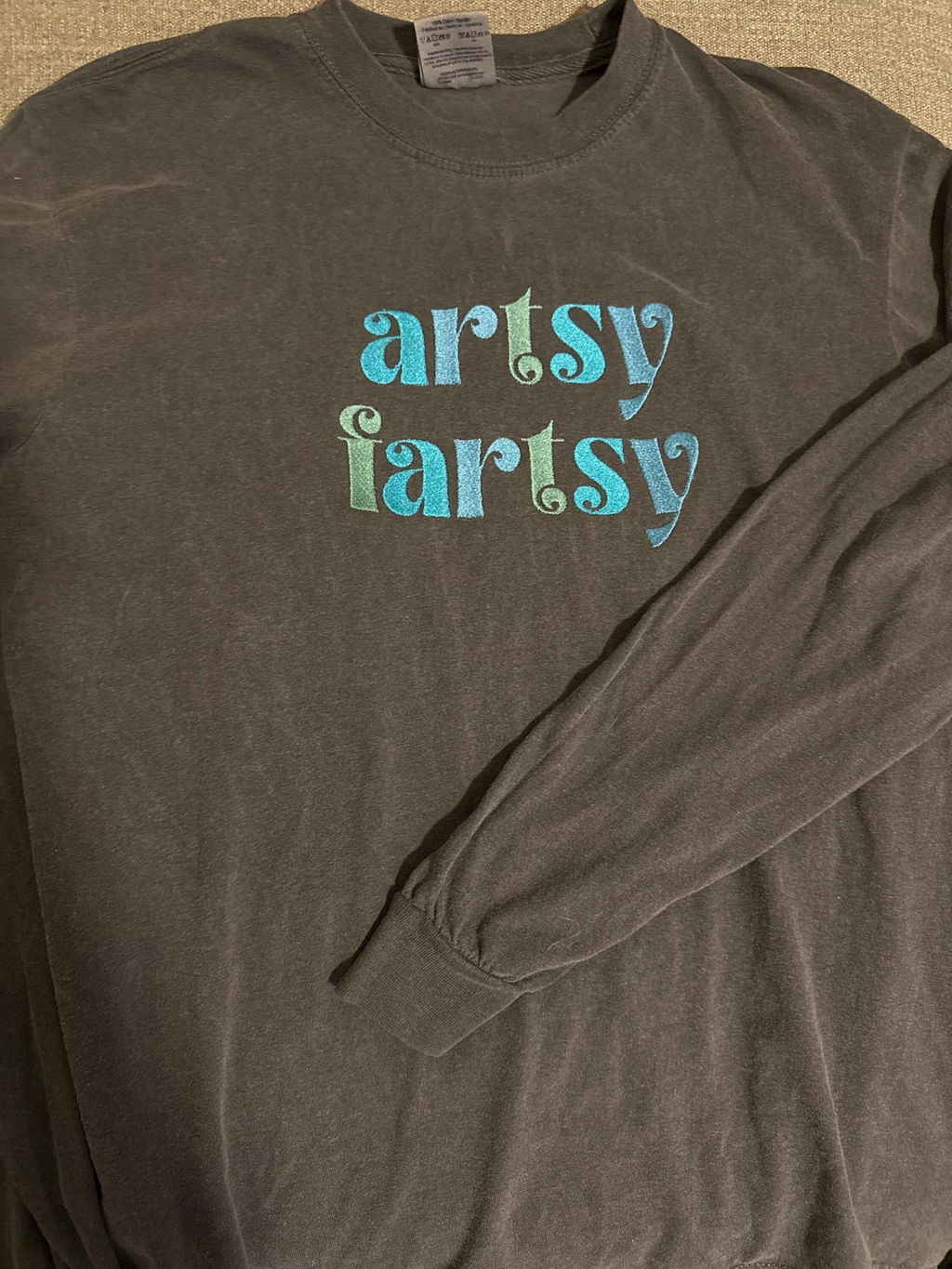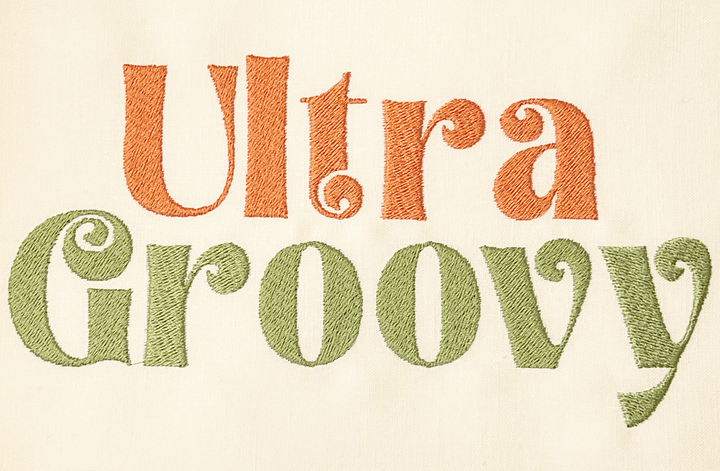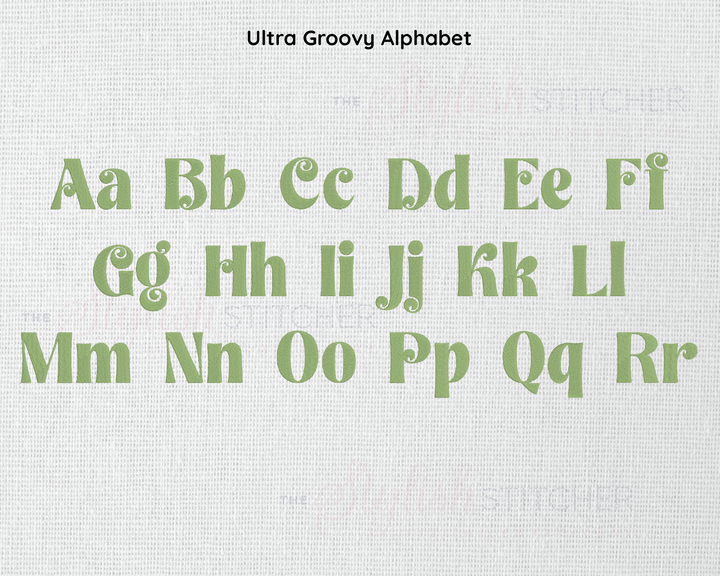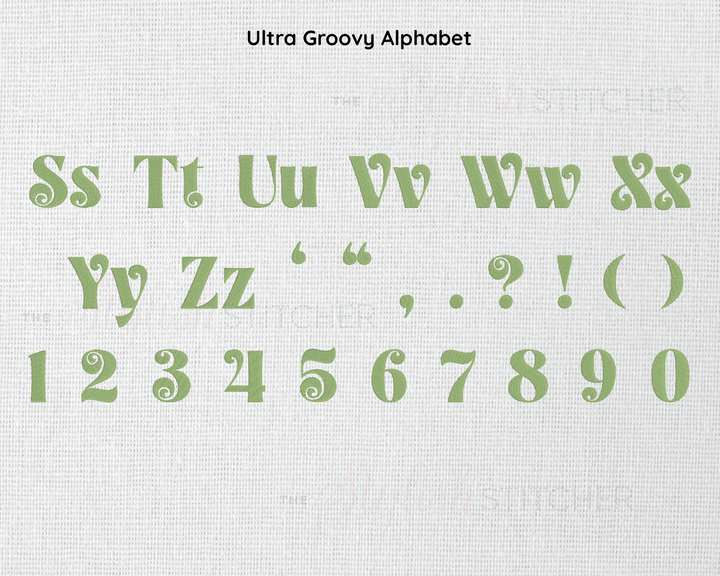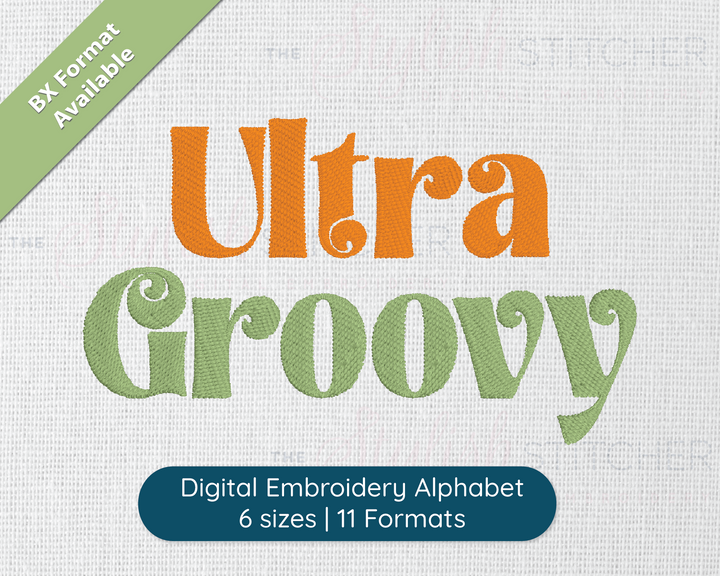
Ultra Groovy Digital Embroidery Font
Looking for a font that channels the funky, retro vibe of the 70s? Look no further than Ultra Groovy, the machine embroidery font that adds a touch of vintage cool to any design. Featuring a bold, playful style with chunky letters and exaggerated serifs, Ultra Groovy is perfect for creating statement pieces with a bit of groovy flair. Whether you're embroidering retro-inspired fashion accessories or funky home decor, Ultra Funky is a fun and unique font that adds personality to any project.
This font includes:
- Upper case A thru Z.
- Lower case a thru z.
- Numbers 0-9.
- 8 punctuation symbols
- Stitch Type: Fill
Please note: This font is made using a fill stitch; it is too wide to use a satin stitch.